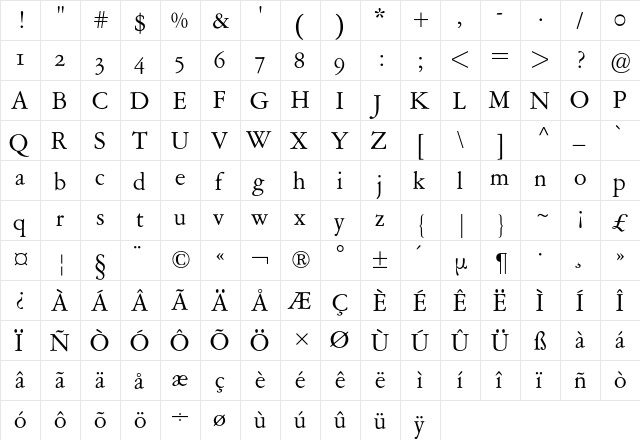
Garamont Amsterdam Expert BQ Regular
Design Context for Garamont Amsterdam Expert BQ Typeface
Garamont Amsterdam Expert BQ is a composed and adaptable typeface that performs quietly and consistently across a wide range of design contexts.